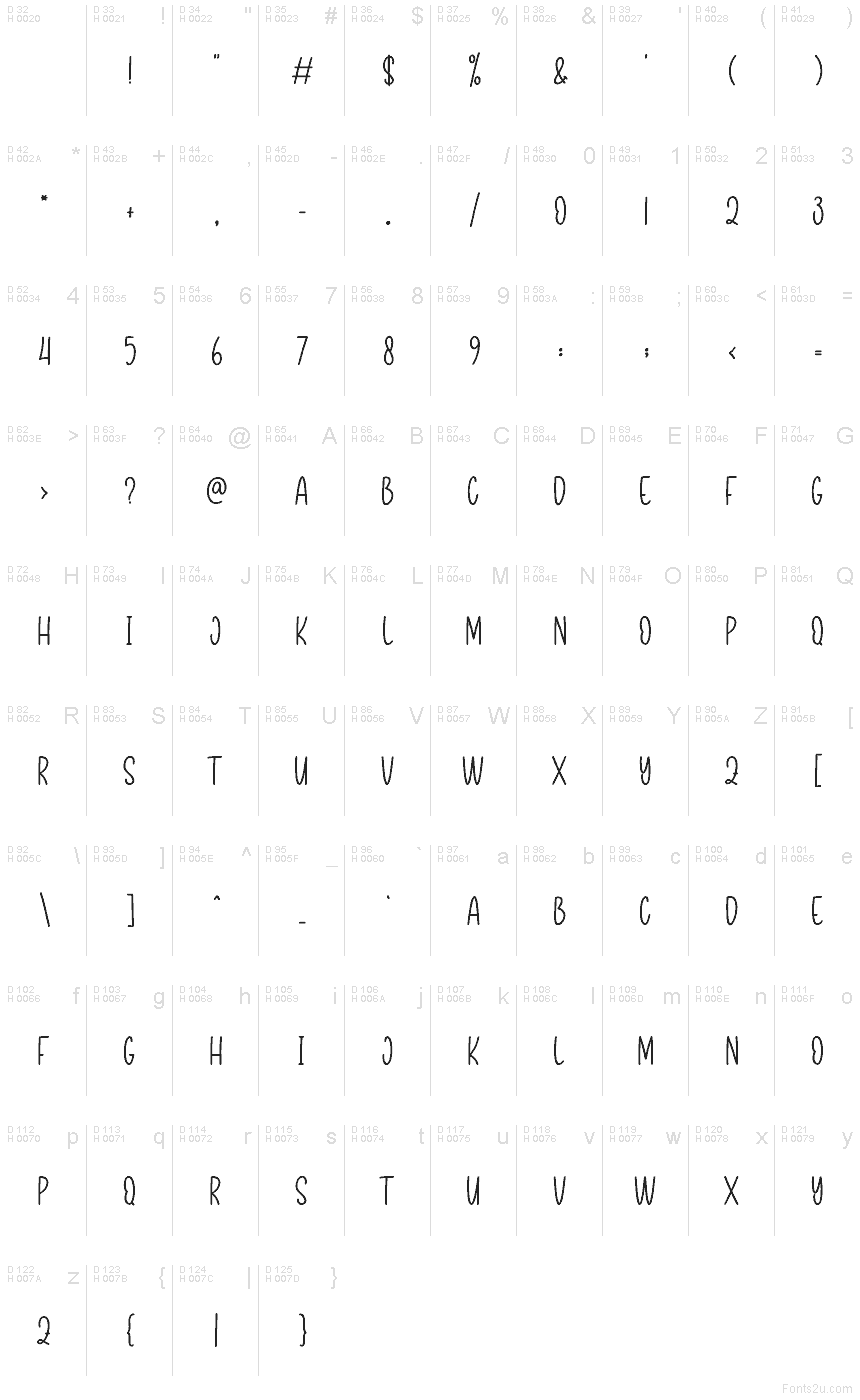
Barbie Winter
Barbie Winter font is an incredibly casual and cheerful handwritten font that any designer would like to have in their font library. Designed by Andi Mozi, the letters are all equally balanced with a friendly appearance and an approachable touch. This condensed light-weight free handwritten font offers something special for contemporary applications in children’s products and creative branding.
Use for fun birthday greeting cards, child illustrations, T-Shirts text or fun hand-lettering quotes. Other creative projects include jewelry design, signs and menus for kid cafes or parties, cartoons use or gifts wrapping decor. Have fun trying Barbie Winter in everything!